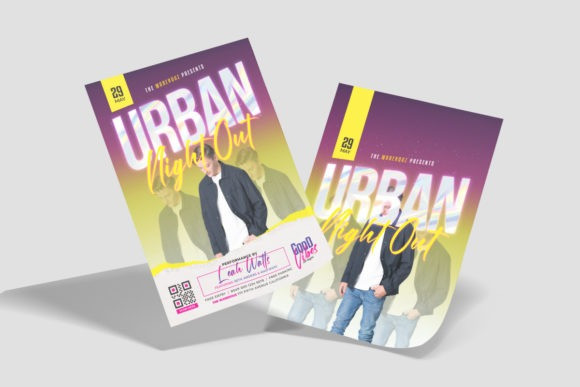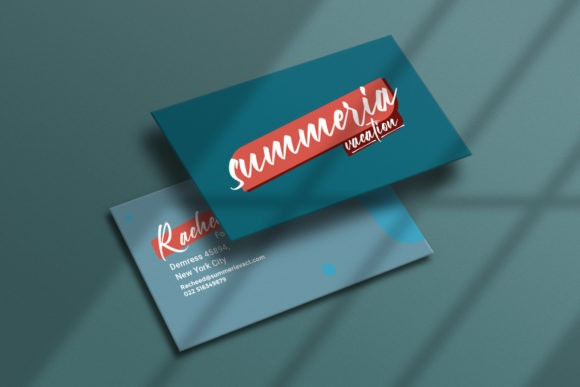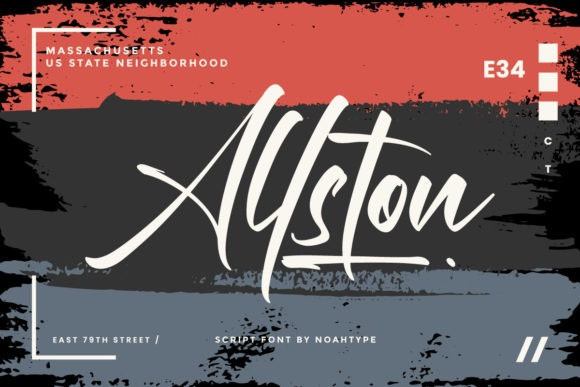
Allston Font
Allston Script Font is a stunning script font that has modern characters carefully crafted to create a look as close to a natural sketch as possible. It is great to use for wedding and engagement invitations, branding, movie and book titles, music album covers, festival promotions, social media posts, and many more. It can also be used by florists, hairstylists, makeup artists, and event organizers alike, as it will add a beautiful handwritten touch to any design. Fall in love with its incredibly versatile style, and use it to create spectacular designs!